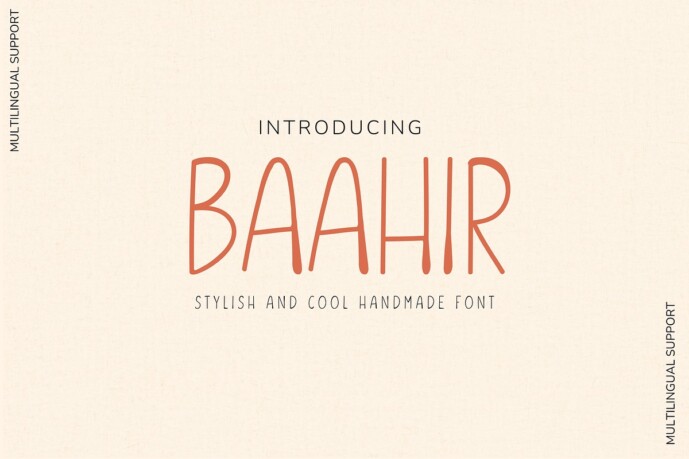
Baahir Handmade Font
Introducing Baahir Handmade Font – the epitome of artistic creativity delicately crafted by hand. This unique font breathes life into logos, brings elegance to invitations, adds personality to posters, and infuses charm into cards. With a complete set of characters, Baahir Handmade Font seamlessly bridges the gap between design and communication. It’s compatible across all PC & Mac platforms, making it a versatile accessory to your creative toolkit. Embrace the sophistication of Baahir Handmade Font and elevate your designs to a whole new level.